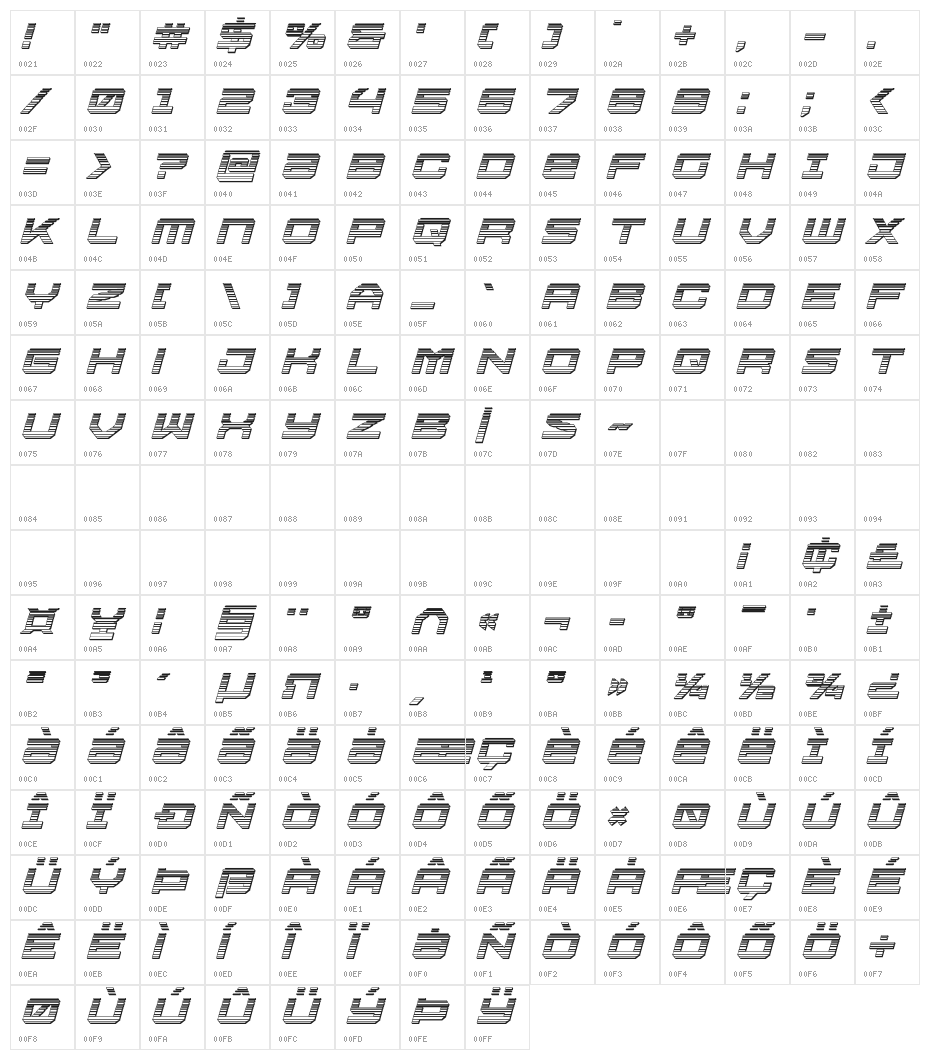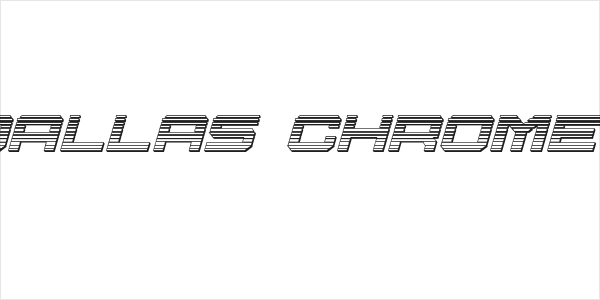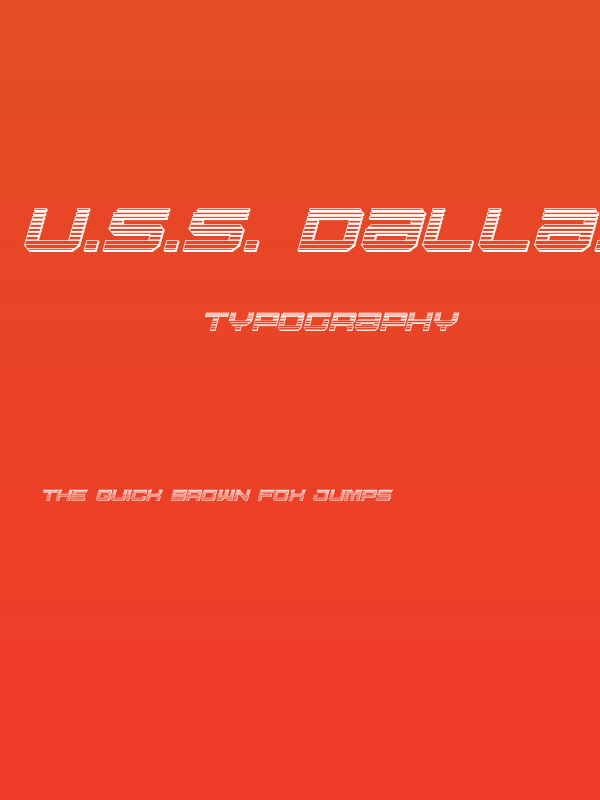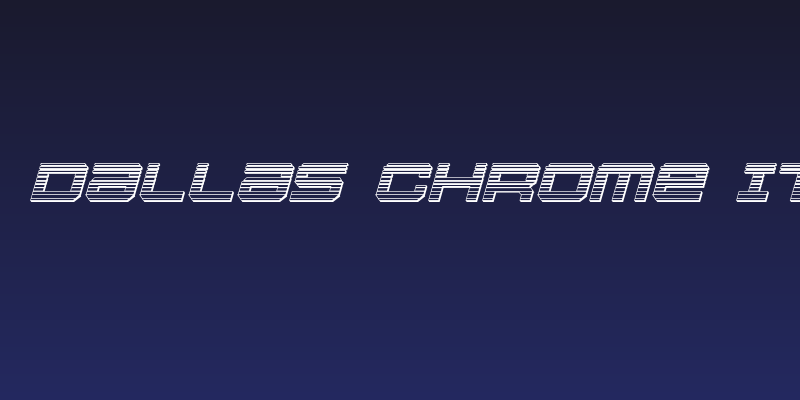
U.S.S. Dallas Chrome Italic Font
U.S.S. Dallas Chrome Italic Description
This font features a futuristic and dynamic design with a chrome-like appearance. The characters are italicized, giving a sense of motion and speed. Each letter is composed of multiple parallel lines, creating a layered effect that enhances its three-dimensional look. The font maintains a consistent width and spacing, ensuring readability while adding a unique aesthetic. The uppercase and lowercase letters share a similar style, with numbers and special characters following the same design principles. This font is ideal for projects that require a modern and technological feel.
| Proposed Projects | Ideal for sci-fi themed posters, technology branding, video game titles, and futuristic product packaging. |